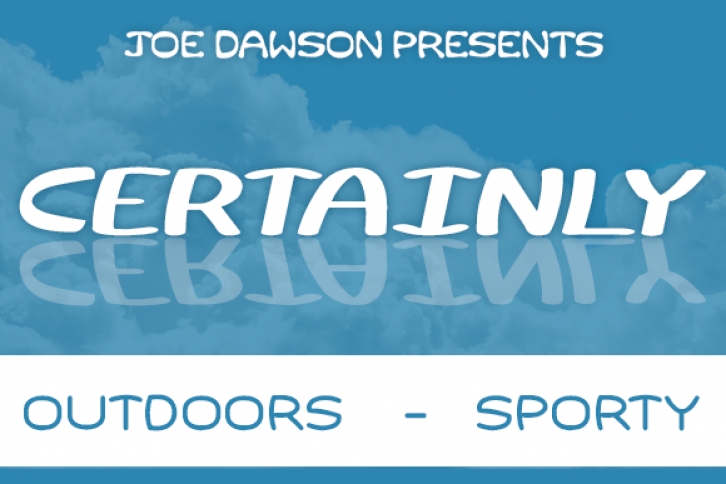
Certainly is a fun, out and about sans serif font. Perfect for websites, t-shirt designs, phone cases, greeting cards and so much more! Get creative with this beautiful typeface.